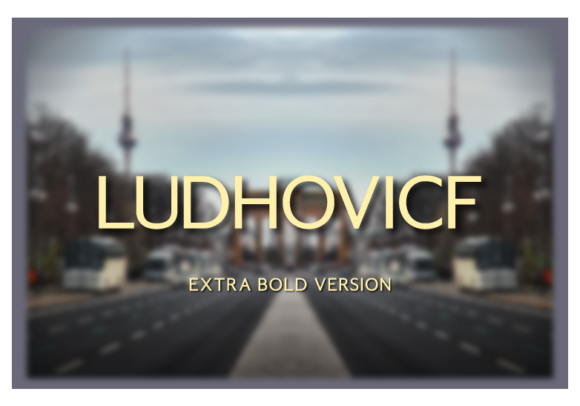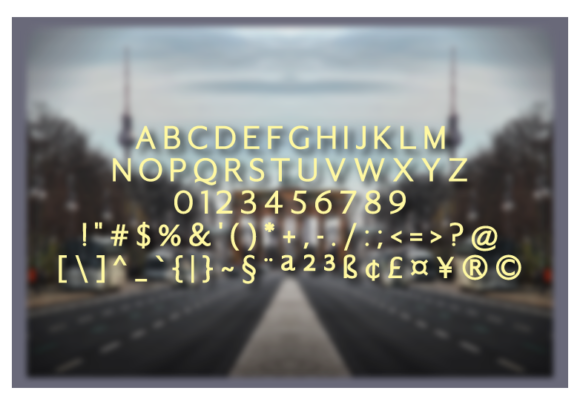
HomeSans Serif FontsLudhovicf Extra Bold Font Sans Serif Fonts Ludhovicf Extra Bold Font FacebookTwitterPinterestWhatsApp Ludhovicf Extra Bold Font 1 of 2 About Ludhovicf Extra Bold Font Ludhovicf blends traditional Spanish architectural elements with modern, minimalist design. Its unique cut-ins & curves make it a true standout! DOWNLOAD NOW People also explored Brush Letter Font Botanikal Font Celementine Teddy Font Gasqilla Script Font Budapes Font Dalovet Font Great Monday Font Maudy Audy Font 229 0 TagsLudhovicf Extra Bold Font Previous articleLudhovicf Black FontNext articleLudhovicf Bold Font LEAVE A REPLY Cancel reply Comment: Please enter your comment! Name:* Please enter your name here Email:* You have entered an incorrect email address! Please enter your email address here Website: Save my name, email, and website in this browser for the next time I comment. Personal Use Free Ardilla Font Personal Use Free Read more about this font Castina Personal Use Free Read more about this font Denisha Personal Use Free Read more about this font Lightning Script Personal Use Free Read more about this font BLOG Using Fonts in Digital Marketing: Tips to Strengthen Your Brand Identity In the realm of digital marketing, every visual element plays a crucial role in shaping a brand's identity, and fonts are no exception. The... Free vs Paid Fonts: Why Investing in Premium Fonts Is Worth It The 10 Best Handwriting Fonts to Add Personality to Your Designs Transform Your Website: Elevate Your Typography with 7 Best Web Font Generators